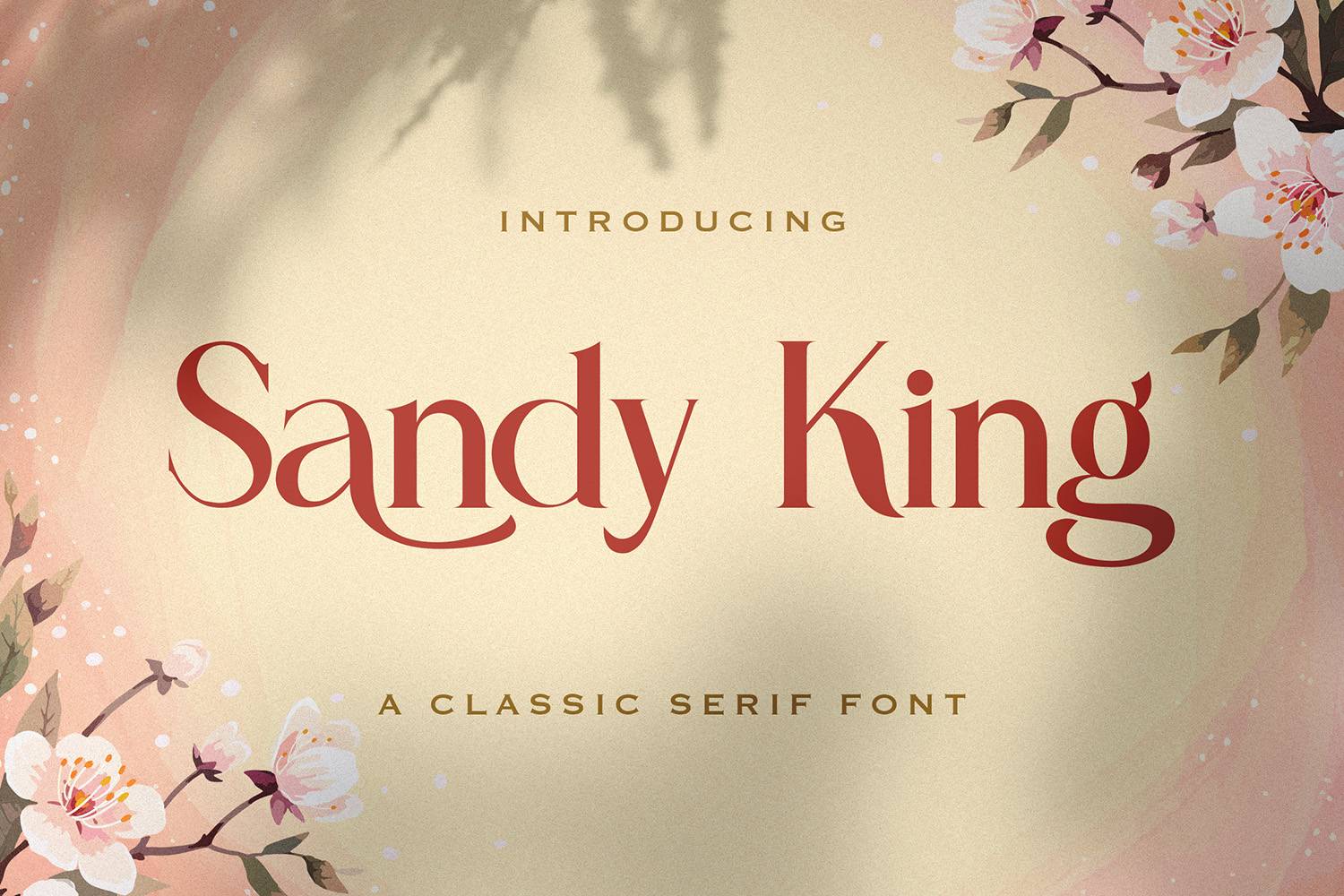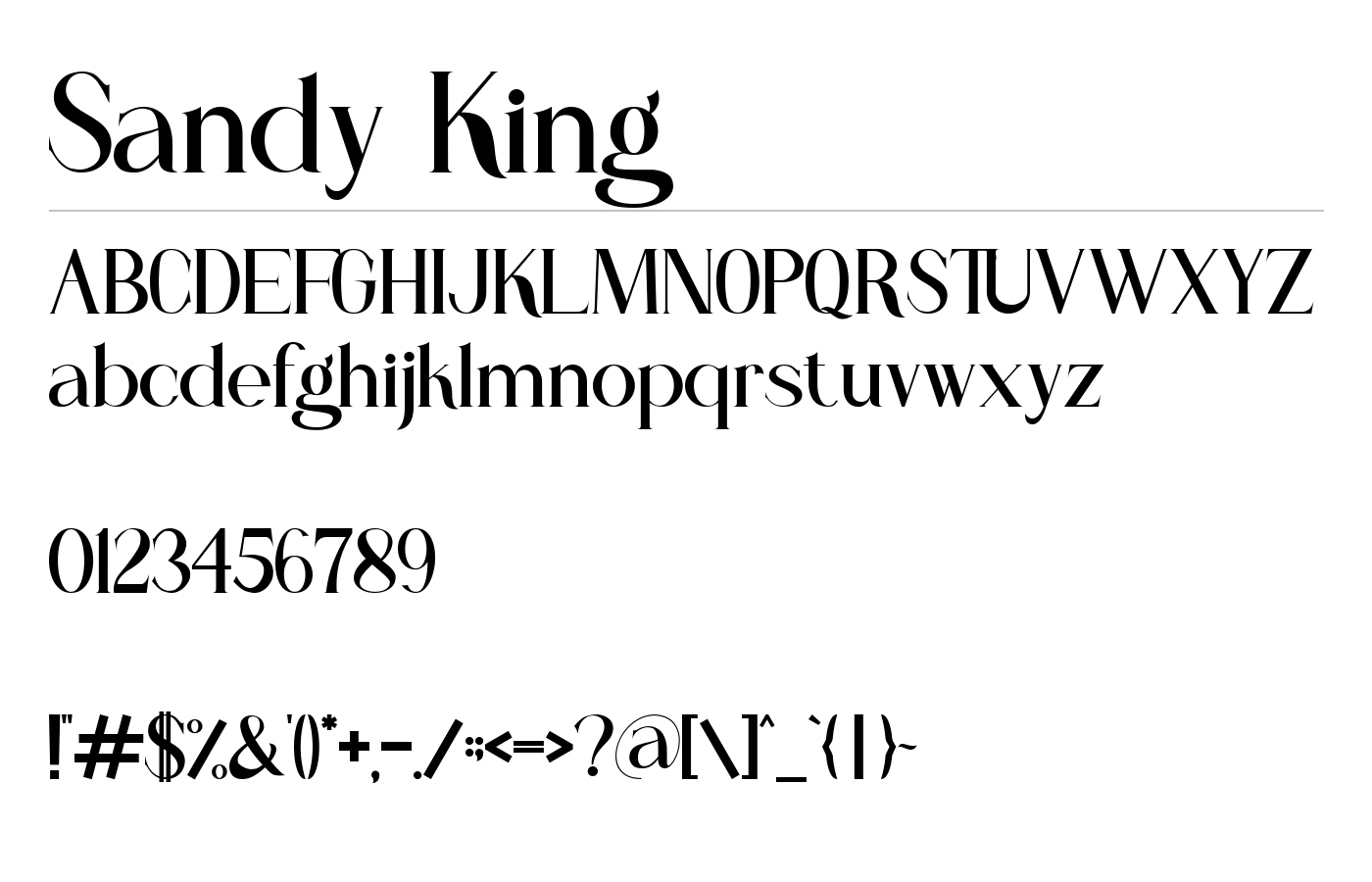
Sandy King is a stylish serif font with a modern Didone influence, featuring high contrast between thick and thin strokes and elegant, sharp serifs. Its tall, narrow letterforms and refined details give it a sophisticated, luxurious feel, making it ideal for upscale branding, fashion magazines, and elegant headlines. This font works beautifully where an air of elegance and modernity is desired, especially in designs that benefit from a striking, classy appearance.
Sandy King Font
About Sandy King Font